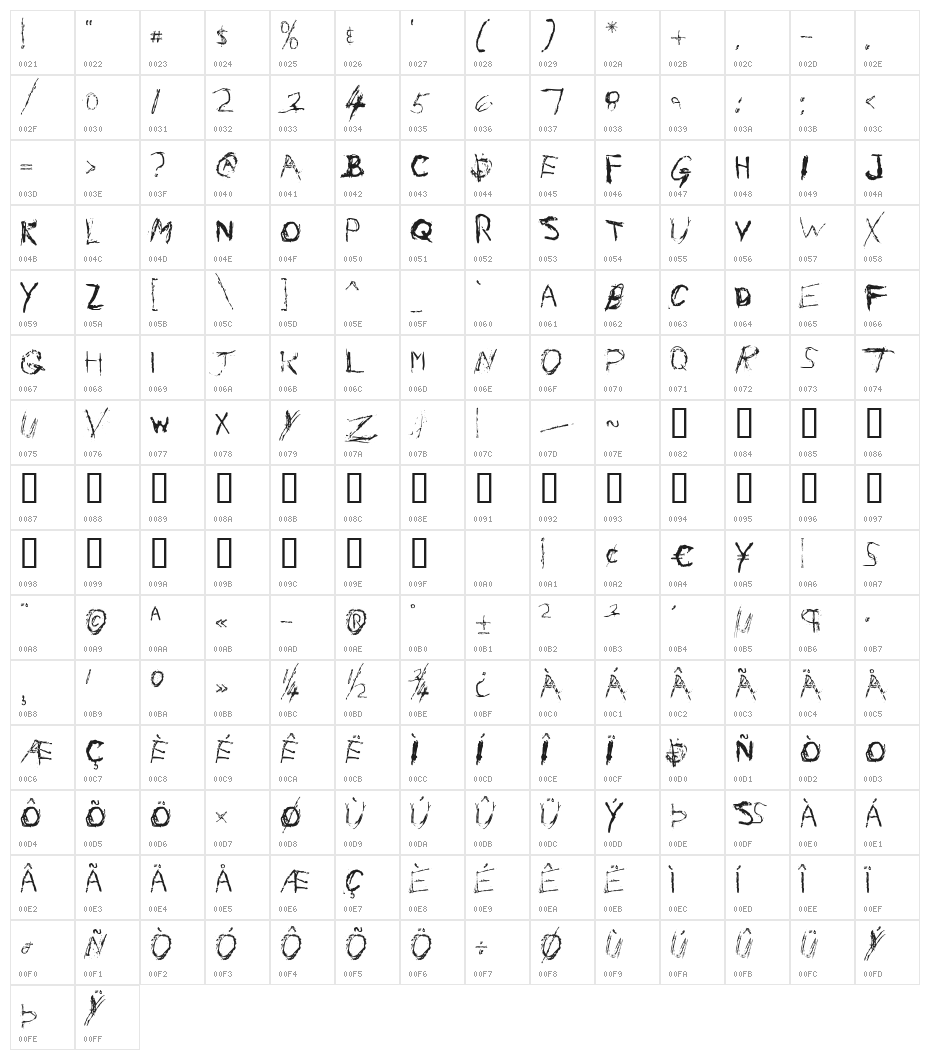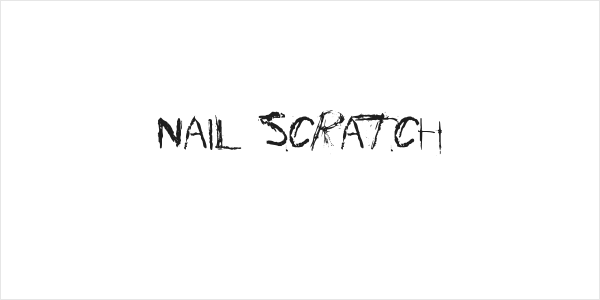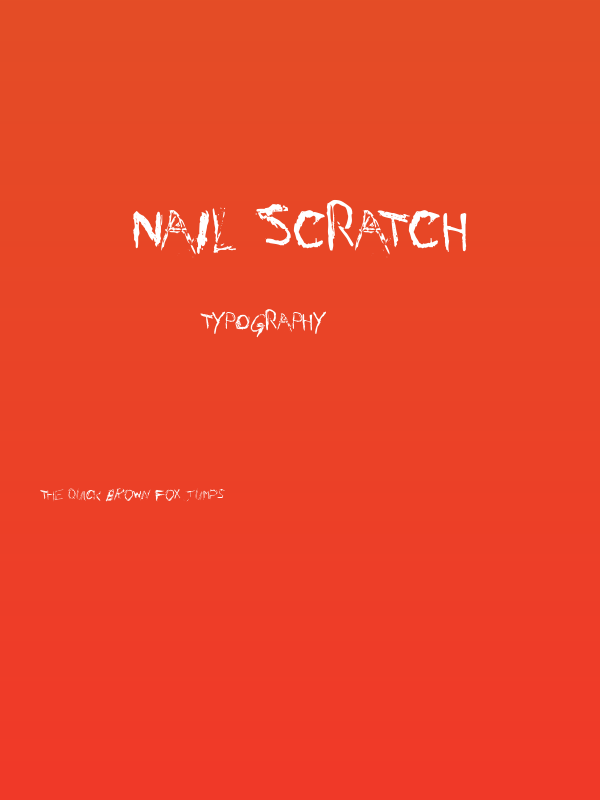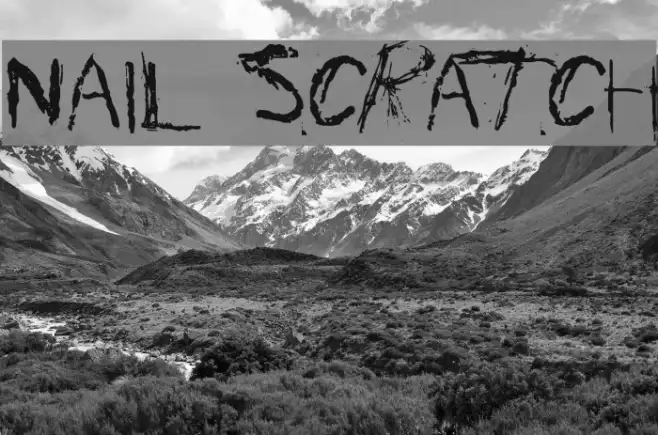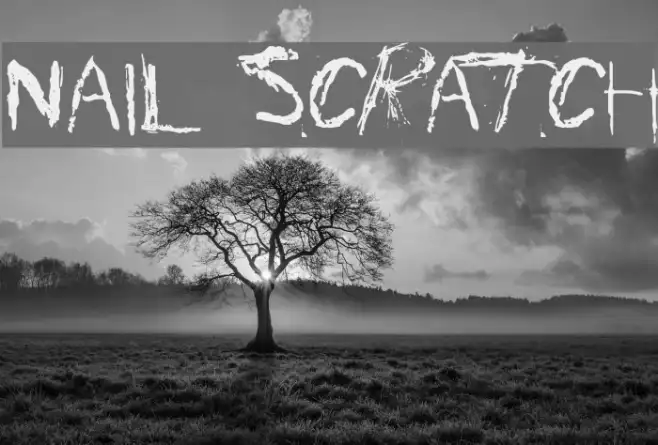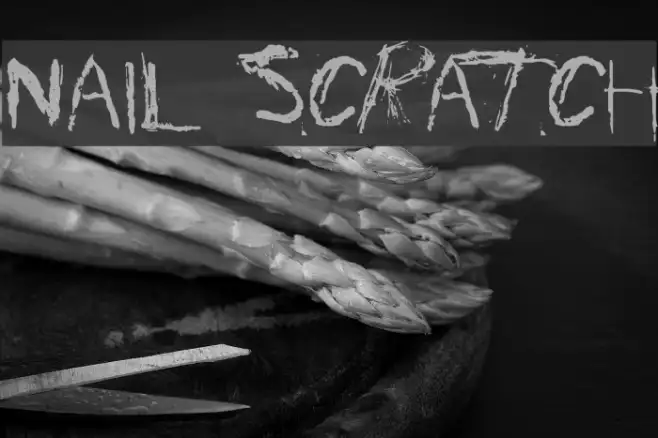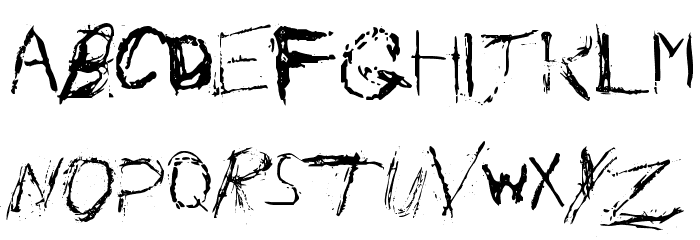
Nail Scratch Font
Nail Scratch Description
This font exhibits a raw, distressed aesthetic reminiscent of scratches or graffiti. The characters are irregular and jagged, with uneven strokes that give a sense of urgency and intensity. The uppercase and lowercase letters maintain a consistent chaotic style, while the numbers and special characters follow suit with their rugged appearance. This font's unique texture and edgy look make it stand out, perfect for projects requiring a bold statement.
| Proposed Projects | Ideal for horror movie posters, album covers, street art designs, or any project needing a gritty, rebellious vibe. |